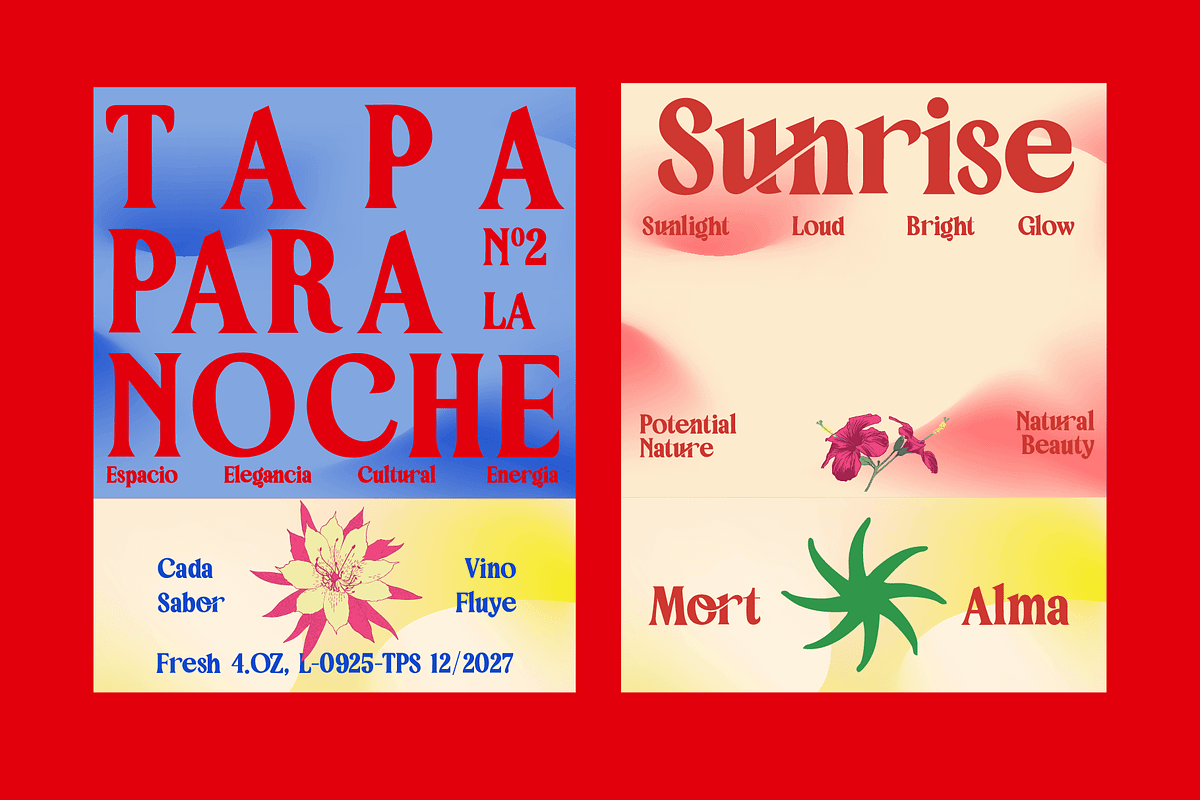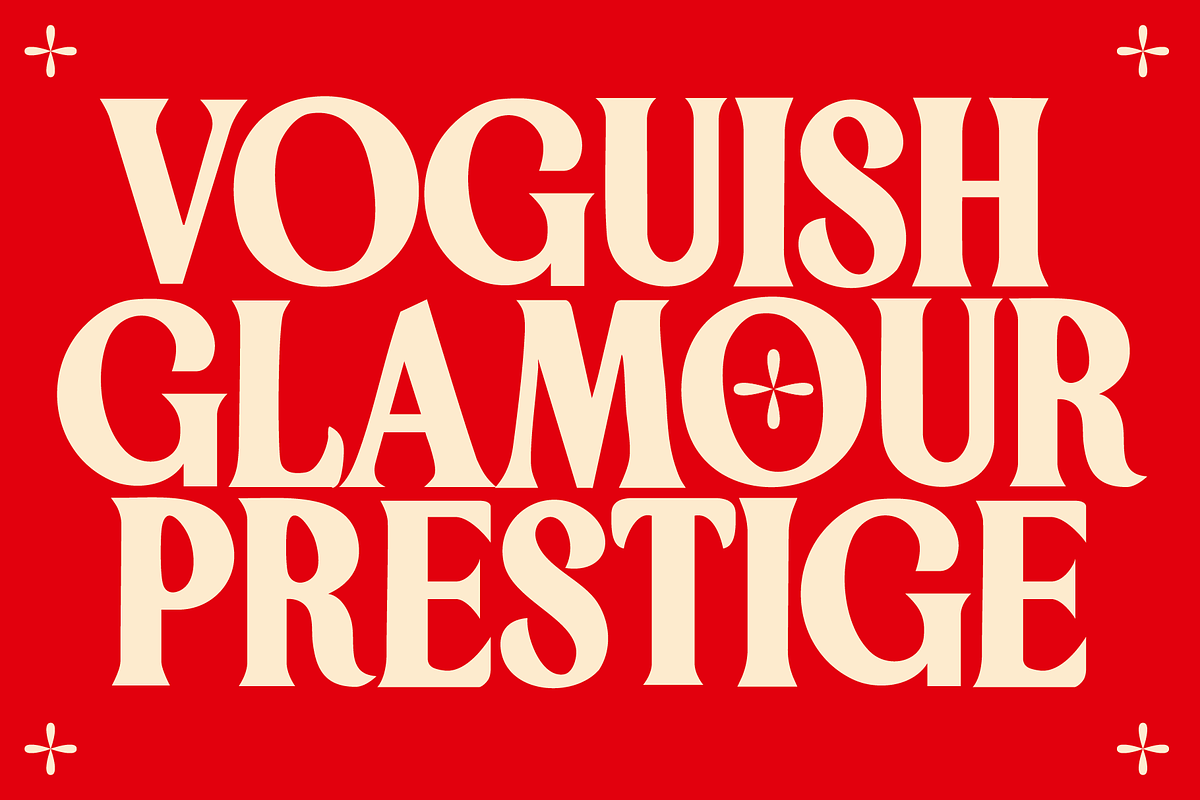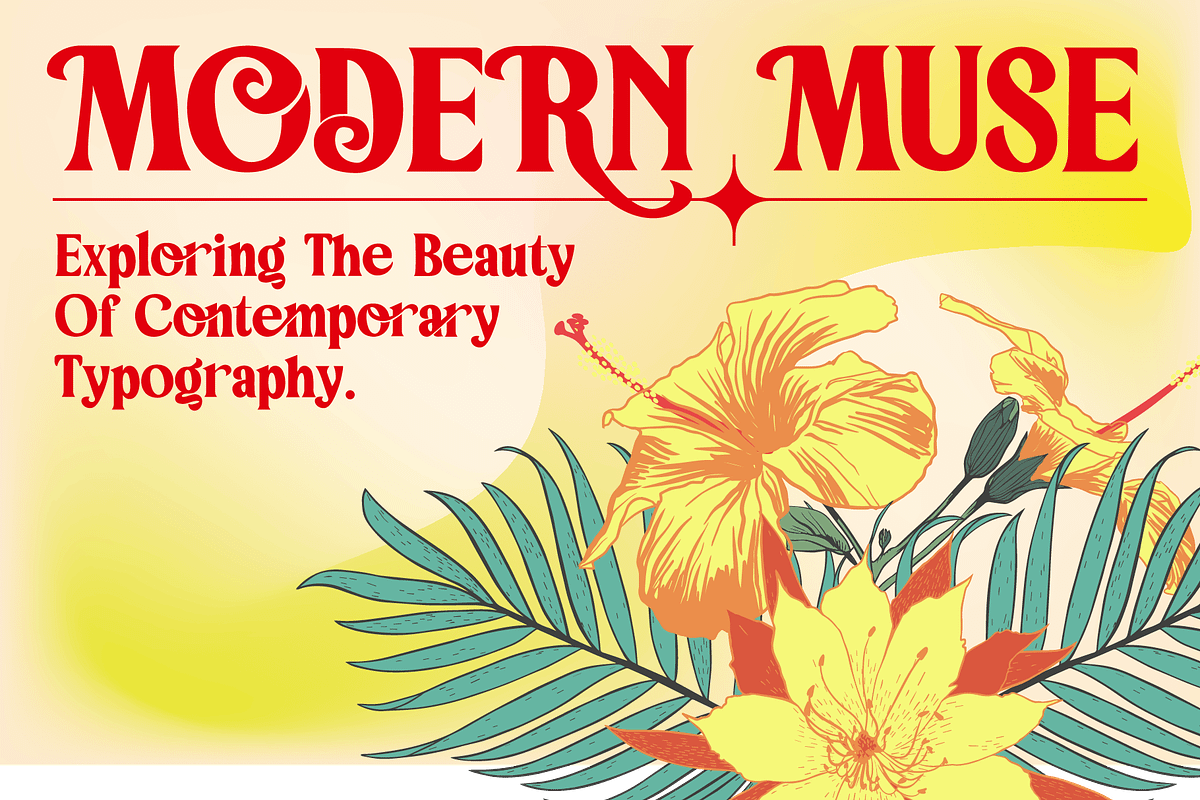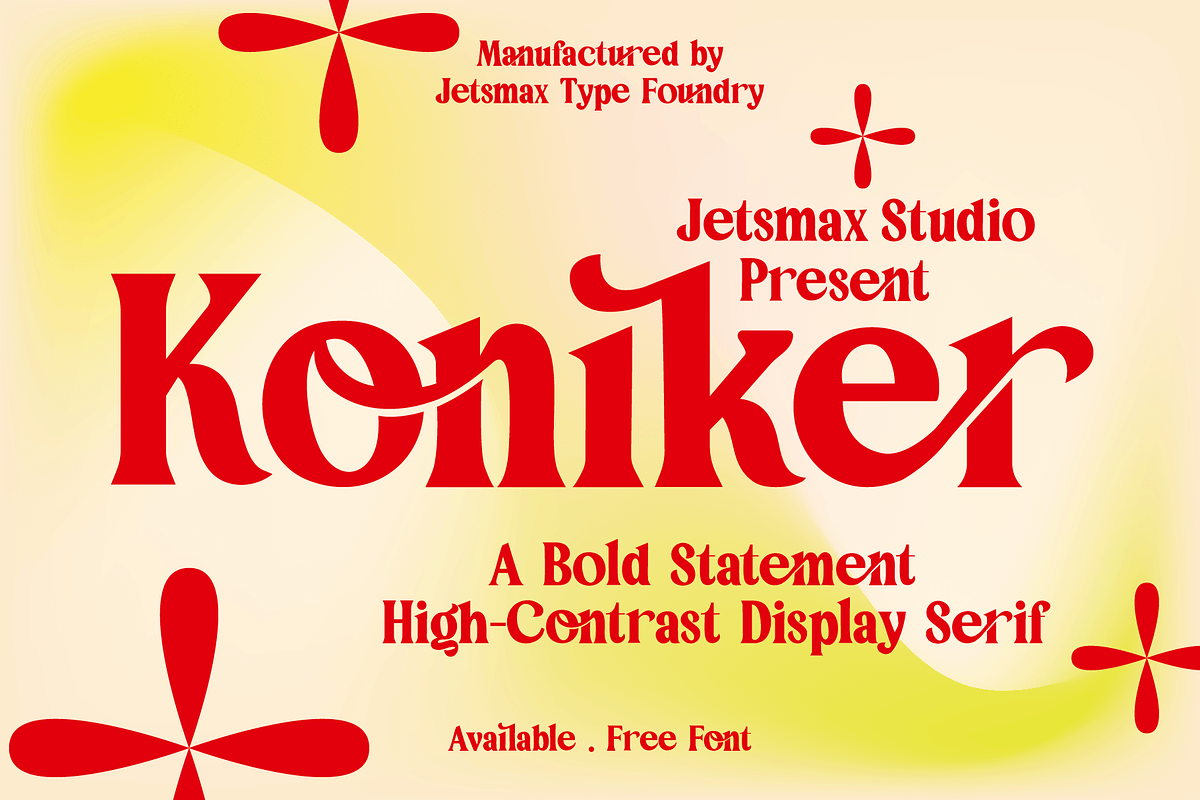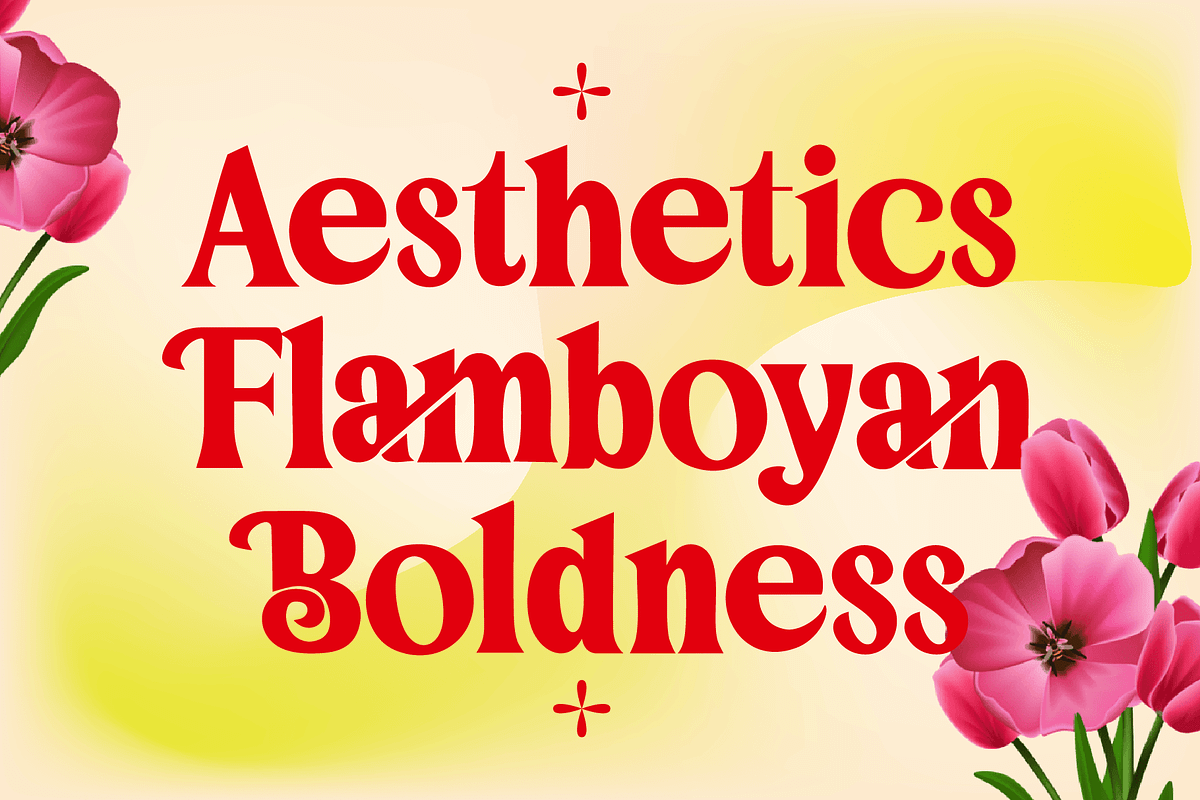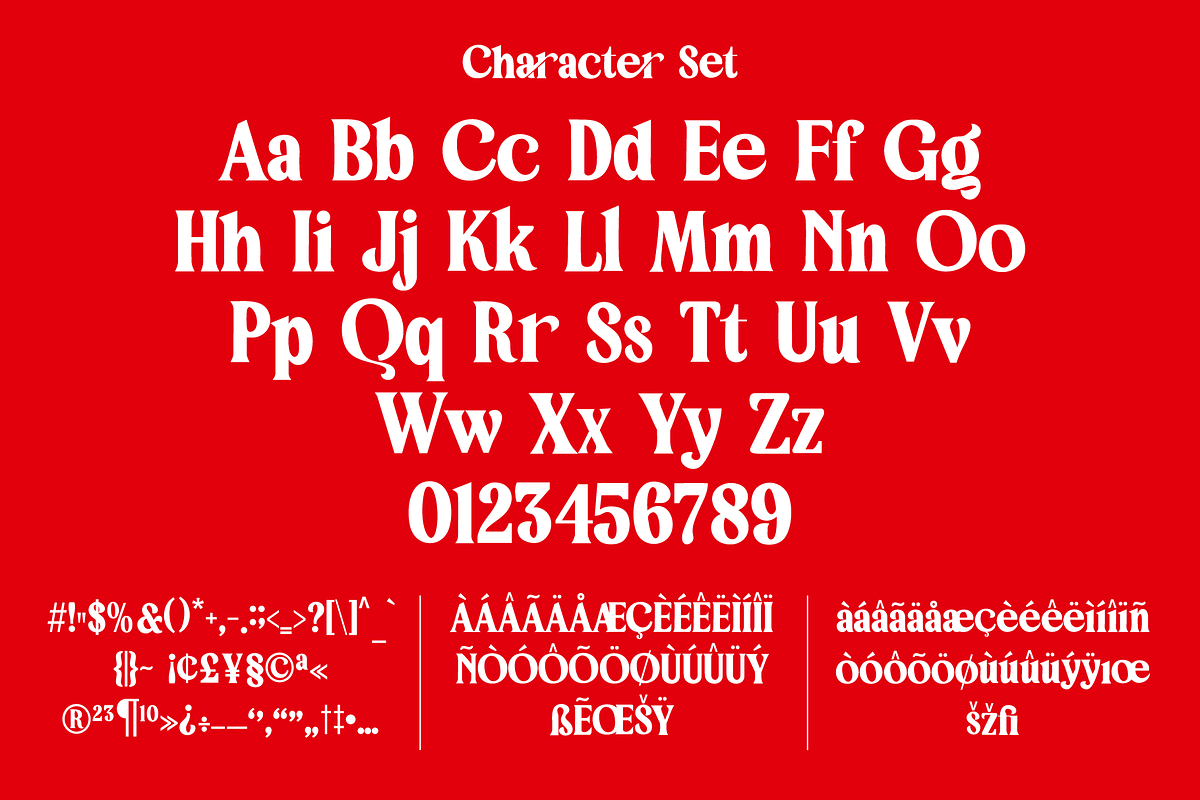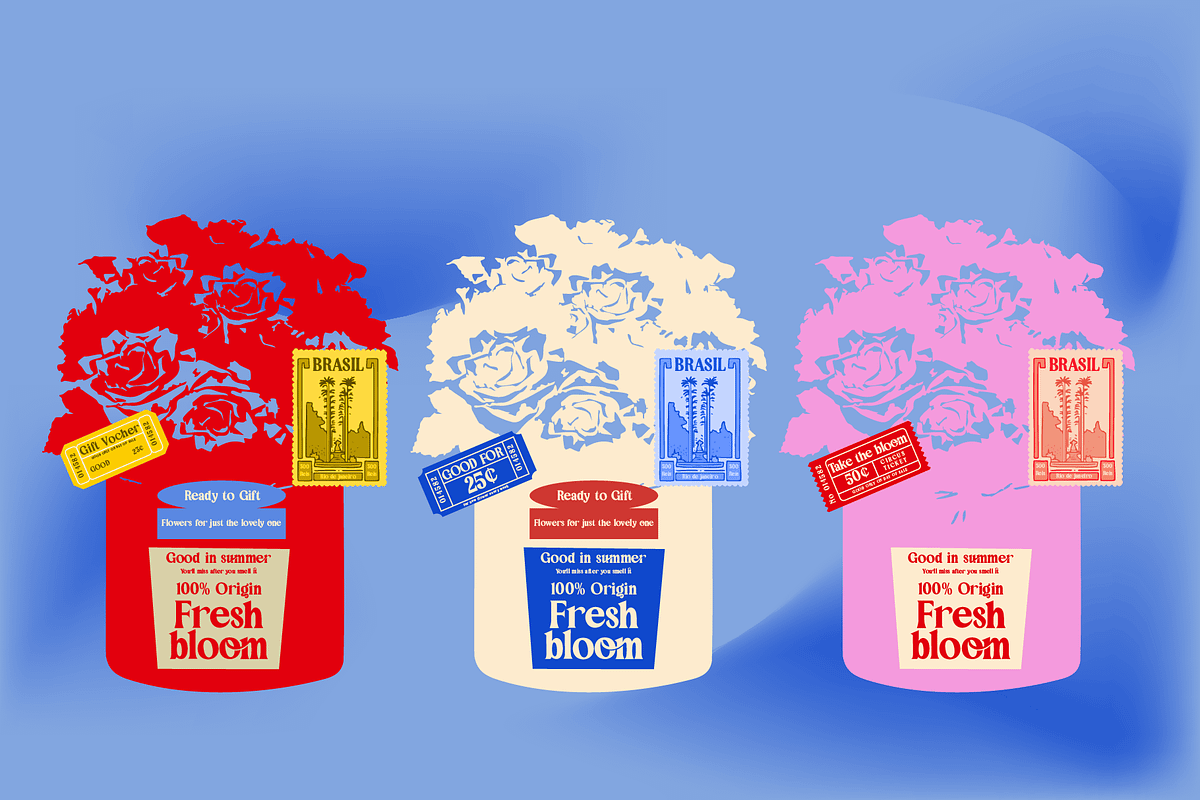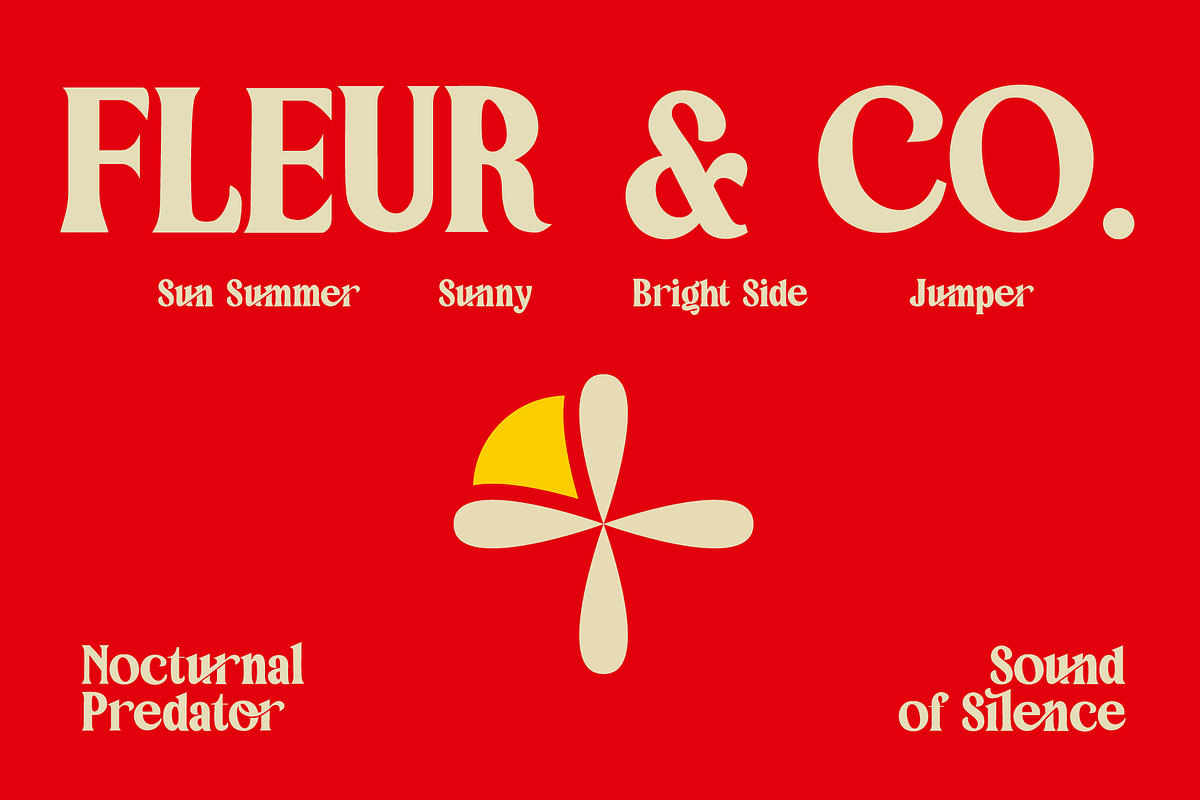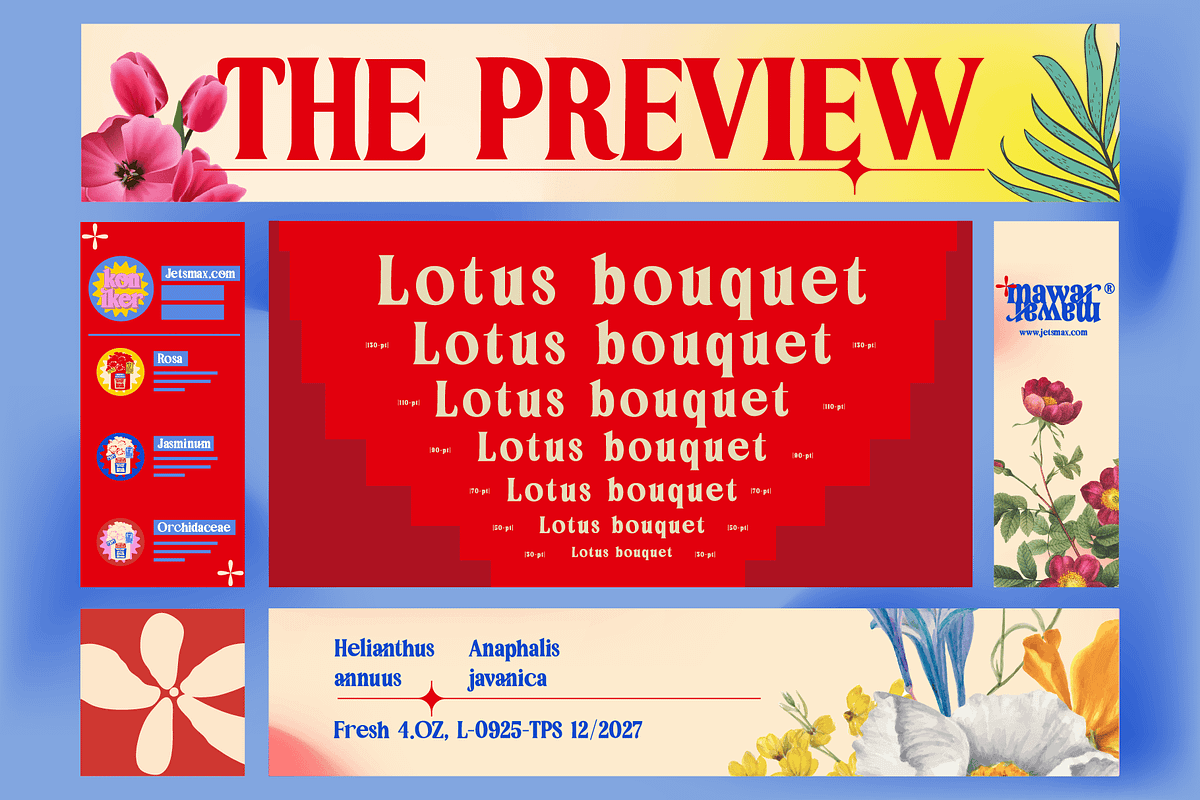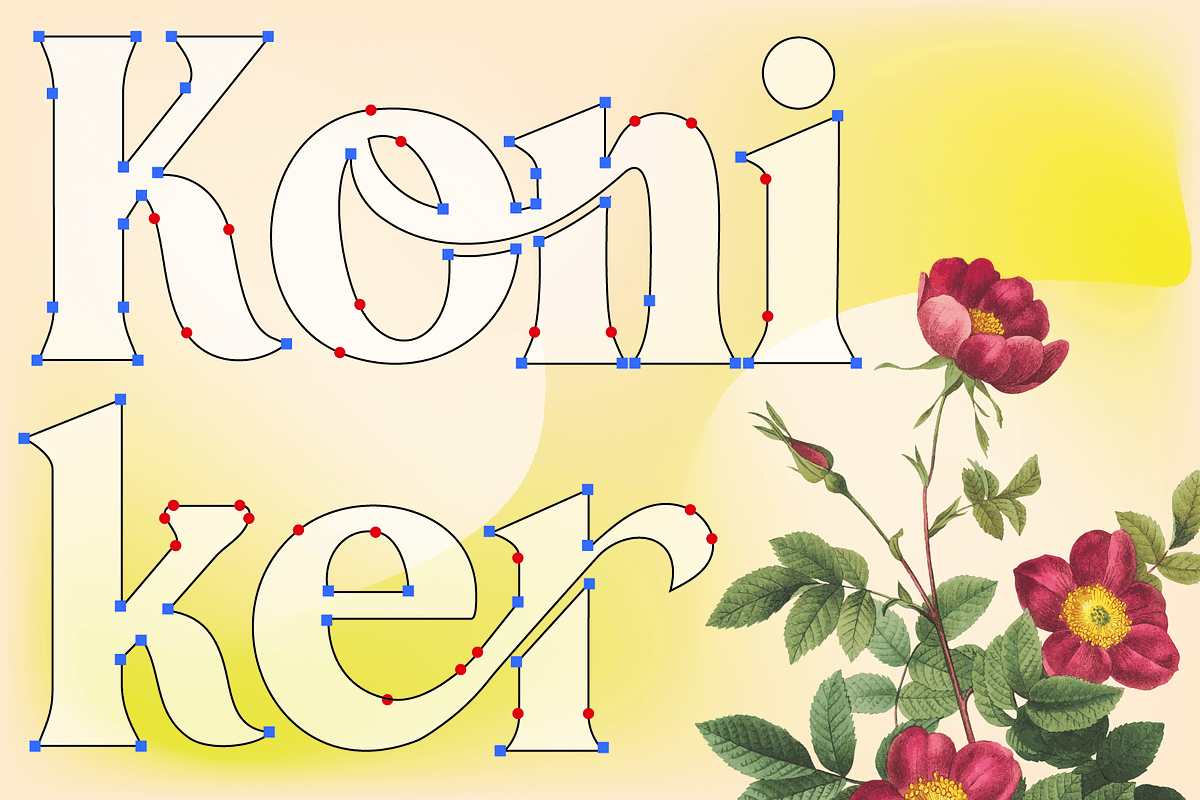
Koniker
Koniker is a display typeface designed to take center stage. Merging a bold, authoritative structure with fluid, organic curves, this font offers a flawless balance between modern elegance and a chic retro revival.
The soul of Koniker lies in its extreme contrast—the dramatic interplay between thick stems and razor-thin hairlines. Distinctive swashes and flowing terminals (seen in characters like ‘n’, ‘k’, and ‘r’) create a unique visual rhythm, making it an ideal choice for design projects that demand a strong personality and high-end aesthetics.